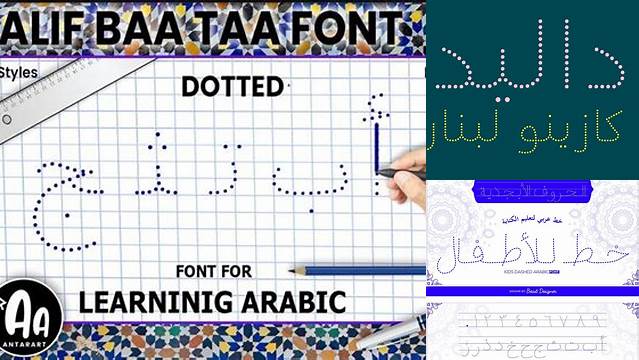
Free Arabic Dotted Font Download For Kindergarten
Hey guys! Are you looking for arabic dotted font for kindergarten free download? You've come to the right place! Learning to write in Arabic can be a fun and engaging experience for young children, especially when using dotted fonts. These fonts provide a visual guide that helps kids trace the letters, making the learning process much smoother and more enjoyable. In this article, we'll explore everything you need to know about Arabic dotted fonts for kindergarten, including where to find them, how to use them effectively, and why they are such a valuable tool for early childhood education. So, let's dive in and discover the world of Arabic dotted fonts! Using dotted fonts is beneficial because it provides a clear visual pathway for children to follow, making it easier for them to understand and replicate the shapes of Arabic letters. The dotted lines act as a guide, helping children develop the necessary motor skills and muscle memory required for handwriting. Moreover, the repetitive tracing action reinforces letter recognition and helps children internalize the structure of the Arabic alphabet. These fonts often come with different styles and levels of complexity, allowing educators and parents to choose the most appropriate option for their child's current skill level. Additionally, the use of dotted fonts can be incorporated into various learning activities, such as worksheets, coloring pages, and interactive exercises, making the learning process more diverse and engaging.
Benefits of Using Arabic Dotted Fonts for Kindergarten
Using arabic dotted fonts offers a myriad of benefits for kindergarten-aged children. Not only do they help with handwriting, but they also boost overall literacy skills. Let’s explore some key advantages:
Improved Handwriting Skills
One of the primary benefits of using arabic dotted fonts for kindergarten free download is the significant improvement in handwriting skills. The dotted lines serve as a guide, helping children trace the letters accurately. This method is especially effective for the Arabic script, which can be complex due to its cursive nature. When children trace dotted letters, they develop the necessary muscle memory and motor skills required for fluent handwriting. This guided practice ensures that young learners are forming the letters correctly from the start, preventing the development of bad habits that can be challenging to correct later. Furthermore, using dotted fonts helps children understand the direction and sequence of strokes needed to write each letter, a crucial aspect of mastering the Arabic script. The visual reinforcement provided by the dots allows children to practice independently and confidently, gradually improving their letter formation and overall handwriting quality. By repeatedly tracing the letters, children also become more familiar with the spatial relationships between different parts of each letter, enhancing their ability to write legibly and consistently. This foundational skill is essential for their future academic success and overall literacy development.
Enhanced Letter Recognition
Another significant advantage of arabic dotted fonts is their ability to enhance letter recognition. The repetitive tracing reinforces the shapes and forms of Arabic letters in a child's mind. This is crucial in the early stages of literacy development. When kids trace the dotted lines, they're not just practicing their motor skills; they're also visually and kinesthetically learning each letter. This multi-sensory approach to learning helps to solidify letter recognition, making it easier for children to recall and identify letters later on. Moreover, the visual cues provided by the dotted letters make it simpler for children to distinguish between similar-looking letters, a common challenge for young learners of Arabic. The act of tracing helps them internalize the unique characteristics of each letter, such as the presence or absence of dots, the direction of curves, and the overall shape. By actively engaging with the letters through tracing, children develop a stronger and more lasting understanding of the Arabic alphabet, which is a foundational skill for reading and writing proficiency. This enhanced letter recognition not only supports their early literacy development but also builds their confidence in their ability to learn and master the Arabic language.
Boosted Fine Motor Skills
Working with arabic dotted fonts for kindergarten isn't just about writing; it’s also a fantastic way to boost fine motor skills. Tracing requires precision and control, which helps children develop the small muscles in their hands and fingers. This development is essential for a variety of tasks, not just writing. Fine motor skills are crucial for everyday activities like buttoning clothes, using utensils, and even playing musical instruments. When children practice tracing dotted letters, they are essentially exercising these fine motor skills in a fun and engaging way. The repetitive motions and the need for accuracy help to strengthen their hand-eye coordination and improve their dexterity. As they become more proficient at tracing, they also gain better control over their pencil or pen, which translates to neater and more legible handwriting. Moreover, the act of tracing can be quite calming and can help children develop focus and concentration. The focus required to follow the dotted lines and accurately form the letters can be a beneficial exercise for children who may struggle with attention span. Therefore, integrating Arabic dotted fonts into kindergarten activities not only supports literacy development but also contributes significantly to the overall physical development of young children.
Improved Reading Skills
While primarily a handwriting tool, arabic dotted fonts for kindergarten free download indirectly contribute to improved reading skills. As children become more familiar with the shapes of letters through tracing, they also become better at recognizing those letters in written words. This connection between writing and reading is fundamental to literacy. By tracing the letters, children are essentially creating a visual and tactile memory of each character, which aids in their ability to decode words when they start reading. The more familiar they are with the individual letters, the easier it will be for them to blend these letters together to form words. This process of decoding is a critical component of reading comprehension. Furthermore, the use of dotted fonts can help children understand the directionality of Arabic writing, which is from right to left. This understanding is crucial for fluent reading. As they trace the letters in the correct direction, children internalize the flow of the language, which makes reading a more natural and intuitive process. Therefore, incorporating dotted fonts into early literacy activities not only enhances handwriting skills but also lays a strong foundation for reading proficiency.
Increased Confidence in Learning Arabic
Learning a new language can be daunting, but arabic dotted fonts can help to increase a child's confidence in learning Arabic. By providing a structured and guided approach to writing, these fonts make the learning process less intimidating. Children feel a sense of accomplishment as they successfully trace the letters, which boosts their self-esteem and encourages them to keep learning. The visual aid of the dotted lines reduces the anxiety associated with writing unfamiliar characters, making the task more approachable and enjoyable. As children see their handwriting improving, their confidence grows, and they become more motivated to explore the Arabic language further. This positive learning experience is crucial for fostering a lifelong love of learning. Moreover, the use of dotted fonts can be particularly beneficial for children who may struggle with handwriting or have learning differences. The clear visual guidance and structured practice help them overcome challenges and achieve success, which builds their confidence and self-belief. By creating a supportive and engaging learning environment with tools like dotted fonts, educators and parents can empower children to embrace the Arabic language with enthusiasm and confidence.
Where to Find Free Arabic Dotted Fonts
Finding free arabic dotted fonts for kindergarten free download is easier than you might think! Numerous websites and online resources offer a variety of fonts that are perfect for educational purposes. Here are some reliable places to check:
Online Font Repositories
One of the best places to find free arabic dotted fonts for kindergarten is online font repositories. Websites like FontSpace, DaFont, and Google Fonts offer a vast selection of fonts, including those designed specifically for tracing and handwriting practice. These platforms often have search filters that allow you to narrow down your options by language, style, and licensing terms. This makes it easier to find fonts that are not only suitable for educational use but also free for commercial purposes, which is important if you plan to use them in materials you might distribute or sell. When searching on these sites, be sure to use relevant keywords such as “Arabic dotted font,” “tracing font,” or “kindergarten font” to get the most relevant results. It's also a good idea to preview the fonts before downloading them to ensure they meet your specific needs and preferences. Many of these repositories also have user reviews and ratings, which can provide valuable insights into the quality and usability of the fonts. By exploring these online font repositories, you can discover a wide range of free Arabic dotted fonts that will enhance your educational resources and make learning to write Arabic a more engaging experience for young children.
Educational Websites
Many educational websites also offer free arabic dotted fonts. These sites often cater specifically to teachers and parents, providing resources designed for classroom or home use. Websites like Twinkl, Teachers Pay Teachers (which sometimes has free resources), and various Arabic language learning platforms may have downloadable fonts that are perfect for creating worksheets and other learning materials. These educational websites often curate their resources to ensure they are appropriate for specific age groups and learning objectives, making it easier for you to find fonts that are suitable for kindergarten students. In addition to fonts, these sites may also offer pre-made worksheets and activities that utilize dotted fonts, saving you time and effort in creating your own materials. When searching for fonts on educational websites, be sure to check the licensing terms to ensure you are using them in compliance with the site's policies. Many educational sites offer free resources for personal and classroom use but may have restrictions on commercial use. By exploring these educational websites, you can find a wealth of free Arabic dotted fonts and other learning materials that will support your efforts in teaching Arabic to young children. This targeted approach to resource gathering ensures that you have access to high-quality, age-appropriate fonts that will enhance the learning experience.
Arabic Language Learning Platforms
Arabic language learning platforms are another excellent resource for finding arabic dotted fonts for kindergarten free download. Platforms like Madinah Arabic, Bayna Yadayk, and other similar sites often provide a range of free resources, including fonts, to support learners of Arabic. These platforms are specifically designed to help individuals learn the Arabic language, so the fonts they offer are typically well-suited for educational purposes. In addition to dotted fonts, you may also find other useful resources such as alphabet charts, vocabulary lists, and grammar guides. These platforms often have a community forum or resource library where users share their own materials and recommendations, which can be a valuable source of information and inspiration. When exploring Arabic language learning platforms, look for sections dedicated to resources for children or beginners, as these are more likely to contain the types of fonts and materials that are suitable for kindergarten students. Be sure to check the licensing terms before using any fonts you find on these platforms, as some may have specific restrictions on how they can be used. By leveraging the resources available on Arabic language learning platforms, you can access a wide variety of free Arabic dotted fonts and other materials that will support your efforts in teaching Arabic to young children. This targeted approach ensures that you are using fonts that are specifically designed for language learning and are appropriate for the age and skill level of your students.
So, there you have it! Arabic dotted fonts are a fantastic resource for teaching kindergarten children how to write in Arabic. By finding the right fonts and using them effectively, you can make learning fun and engaging. Remember to choose fonts that match the child's skill level, provide plenty of practice, and offer encouragement along the way. Happy teaching, guys!